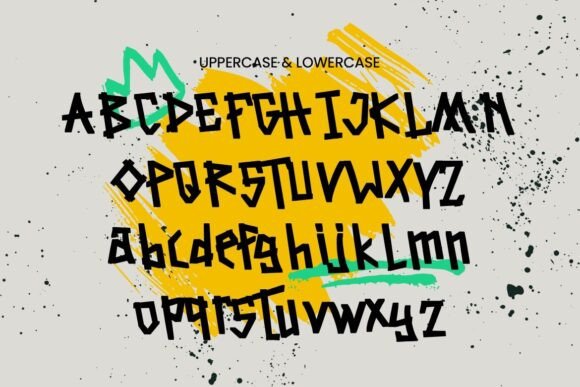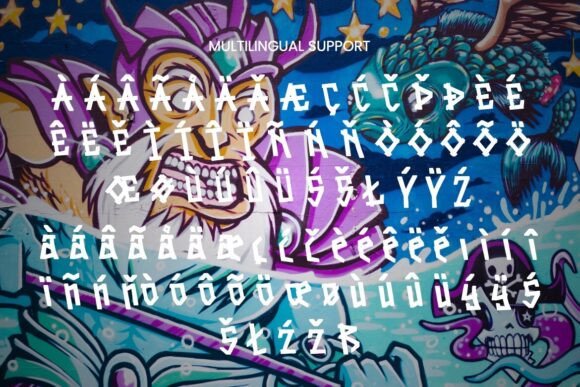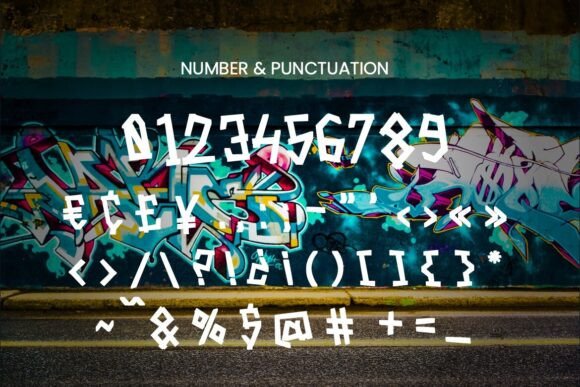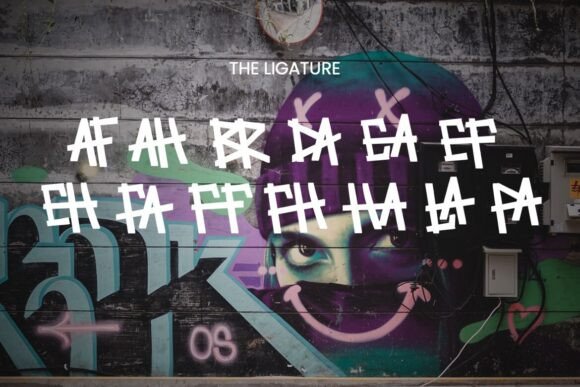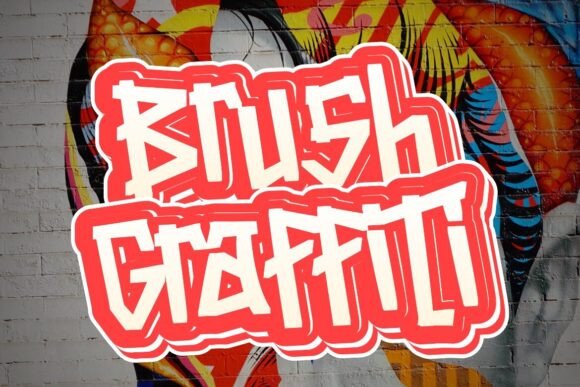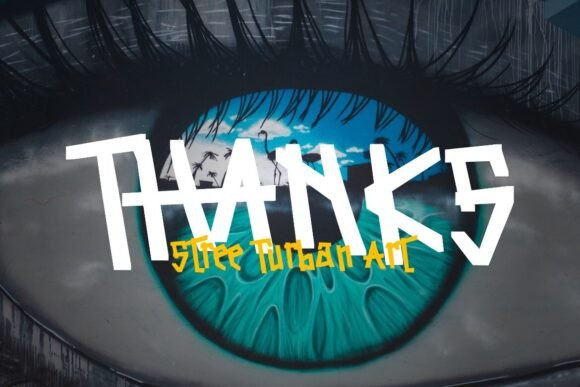
Give Your Designs a Bold Twist with the Afruemo Font
You know that moment when you’re brainstorming ideas for a project, and suddenly, a burst of creativity hits you? The perfect font pops into your mind, and you can’t wait to bring it to life. For designers, finding the right font can make all the difference in setting the tone for a project. That’s where the Afruemo Font comes in – a modern graffiti font that exudes urban style and edginess.
With its bold, stylish letters, the Afruemo Font is perfect for logos, posters, and any design that needs a creative, eye-catching look. Whether you’re working on a streetwear brand or a music festival, this font will give your designs a unique touch that sets them apart. As a designer, you’ll love the Afruemo Font for its versatility and ability to add a bold statement to any project.
- Unique Characteristics: The font features a unique blend of African and modern design elements, making it perfect for creating visually striking and culturally relevant content.
- Font Weight: The font comes in four different weights: Light, Regular, Medium, and Bold, allowing for a high degree of flexibility in design.
Afruemo Font Review
I recently had the chance to work with the Afruemo font, and I must say it’s a unique addition to any design project. ✨ One of the things I appreciate about this font is its versatility – it works well for both digital and print applications. The font’s modern and elegant design makes it perfect for creating a sophisticated and professional look.
- ✨ High-quality design: The Afruemo font is well-designed, with clear and legible characters.
- ✨ Versatile: It works well for both digital and print applications.
- ✨ Modern and elegant design: Perfect for creating a sophisticated and professional look.
However, I do have a few concerns about the font. ⚠️ While the font is generally well-behaved, I did experience some issues with character spacing in certain situations. Additionally, the font’s bold weight is not as robust as I would have liked, which may be a problem for certain design projects.
- ⚠️ Character spacing issues: Can be problematic in certain design situations.
- ⚠️ Not as robust as expected: The bold weight is not as strong as I would have liked.
Overall, I would recommend the Afruemo font to designers looking for a modern and elegant solution. While it’s not without its limitations, I believe the benefits of using this font far outweigh the drawbacks.
For the most out of the Afruemo Font, use it for:
- Typography-based designs.
- Creating a unique and modern look.
- Combining with other fonts for a bold statement.
The Afruemo Font is ideal for:
- Branding and logo designs.
- Marketing materials such as brochures and flyers.
- Web design and development projects.